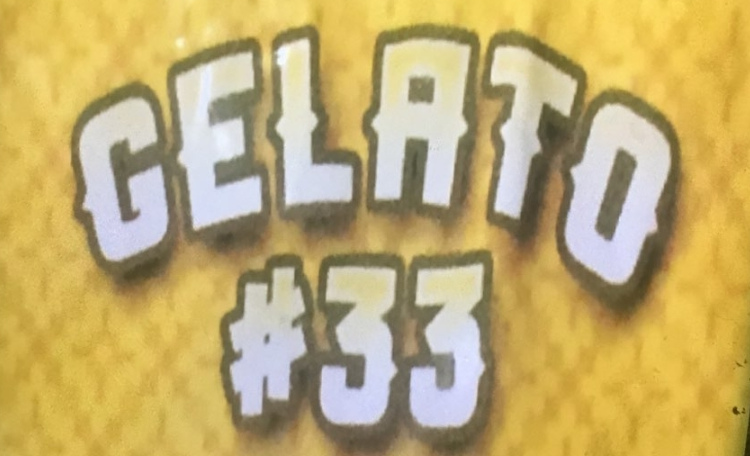
Need help finding square? median spur font not much more info to give!
I found this screen shot online and love the font but have no idea what it is, can anyone help? sorry I dont have much more information.